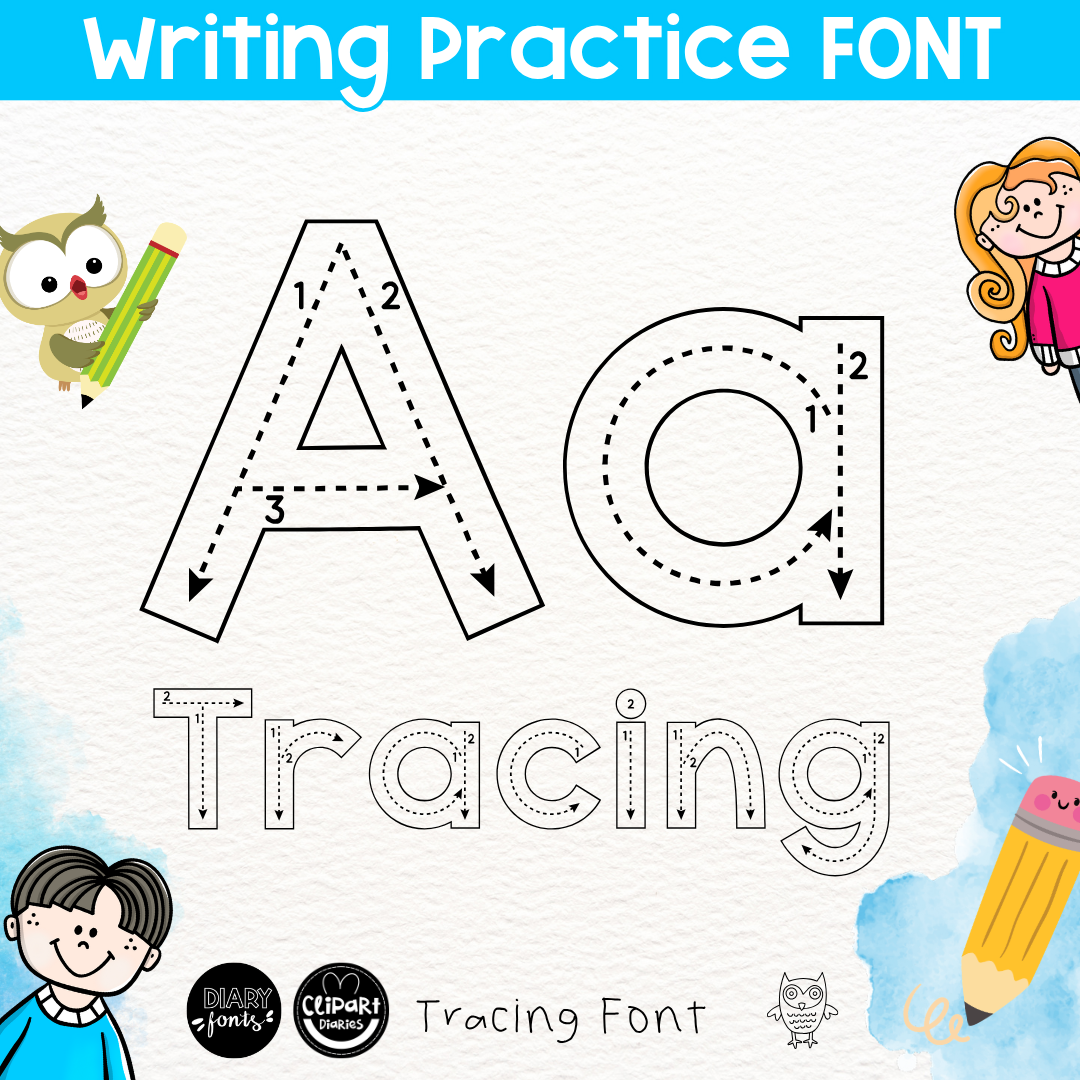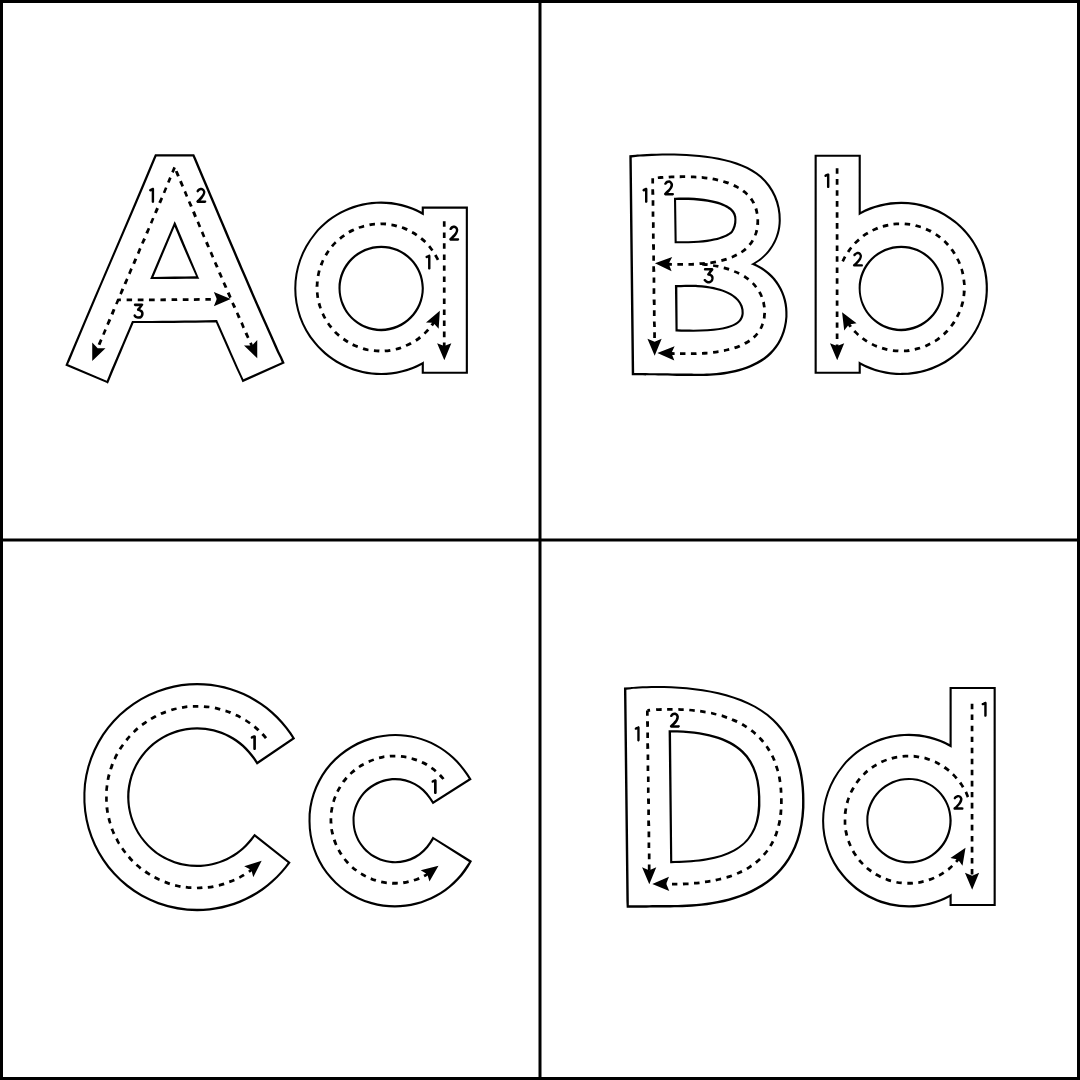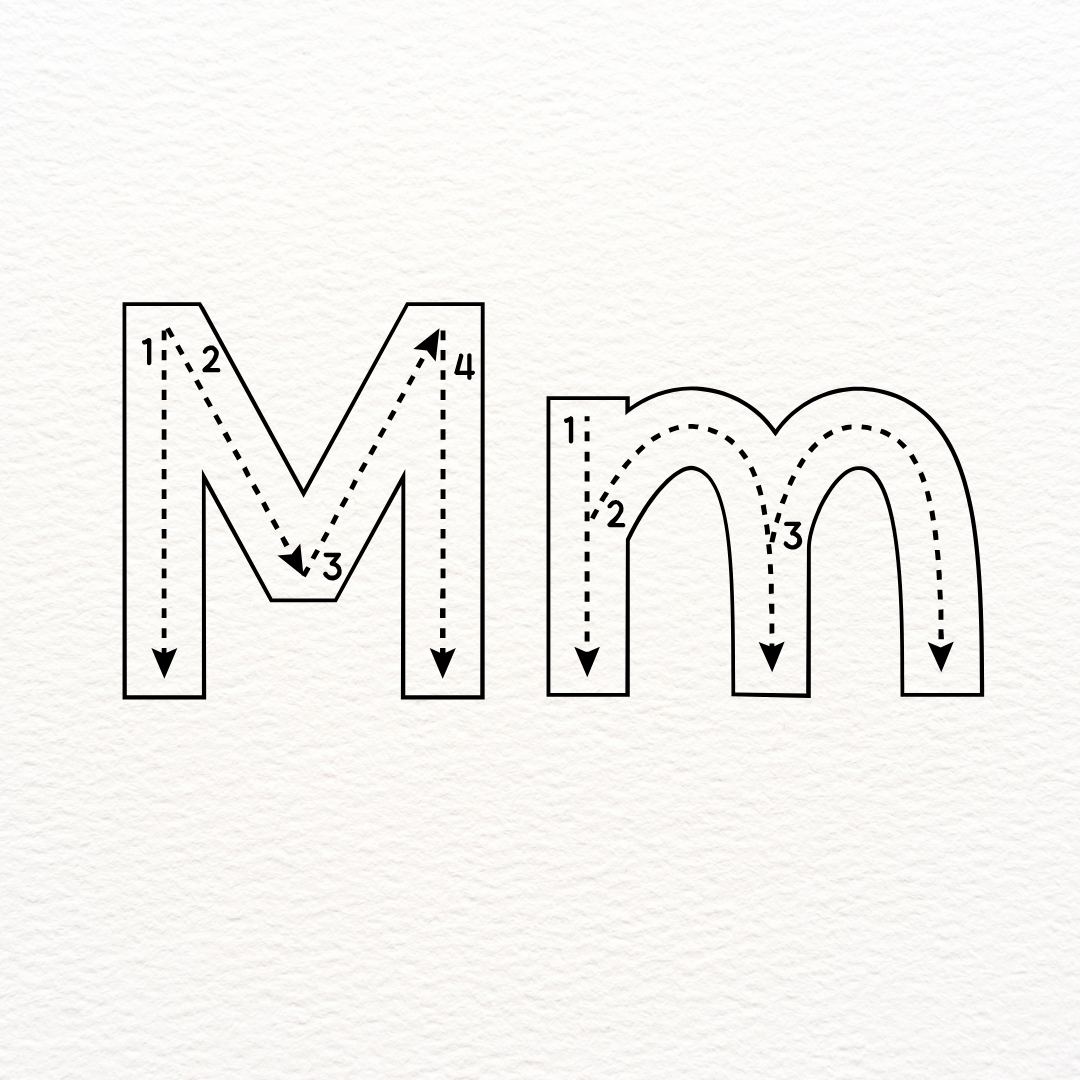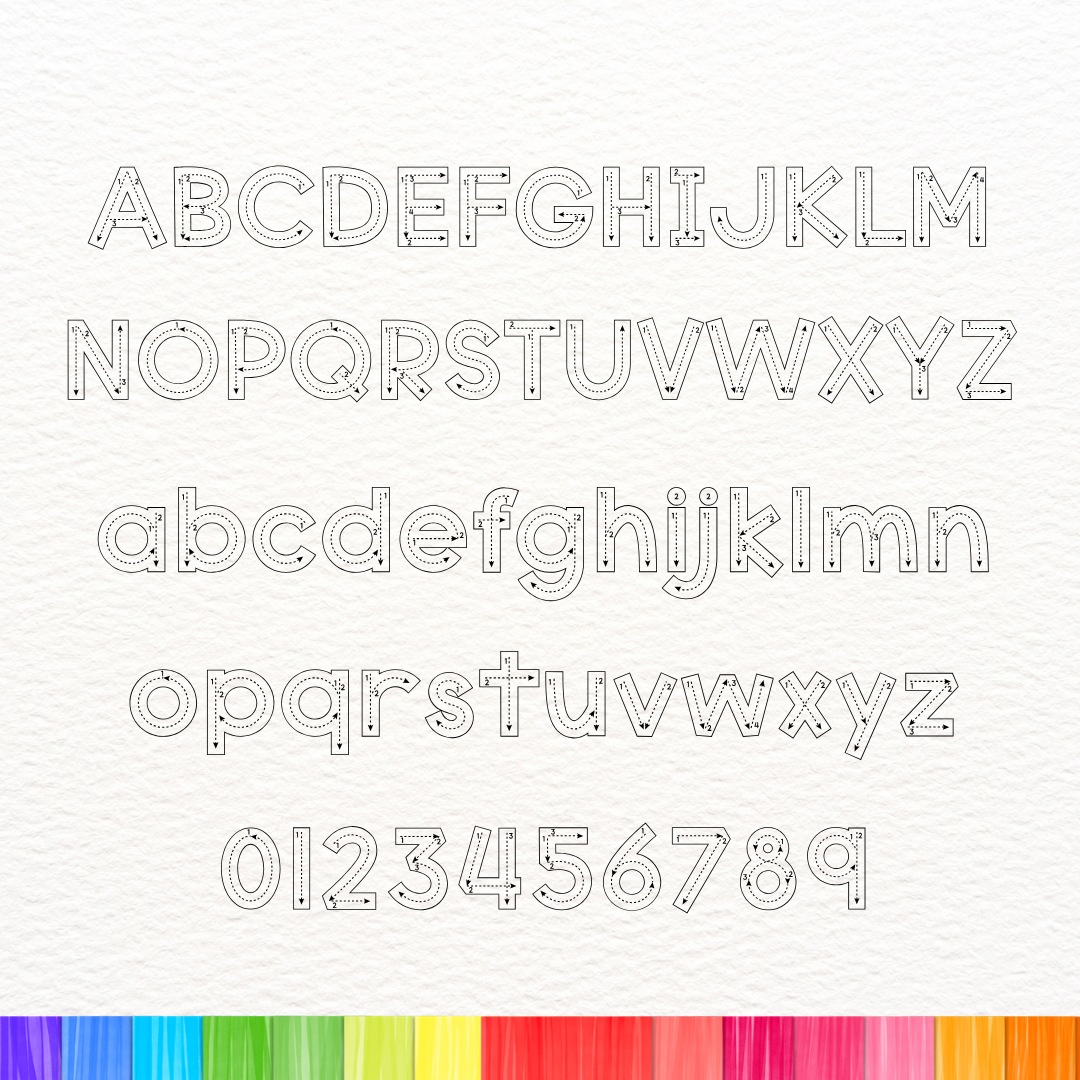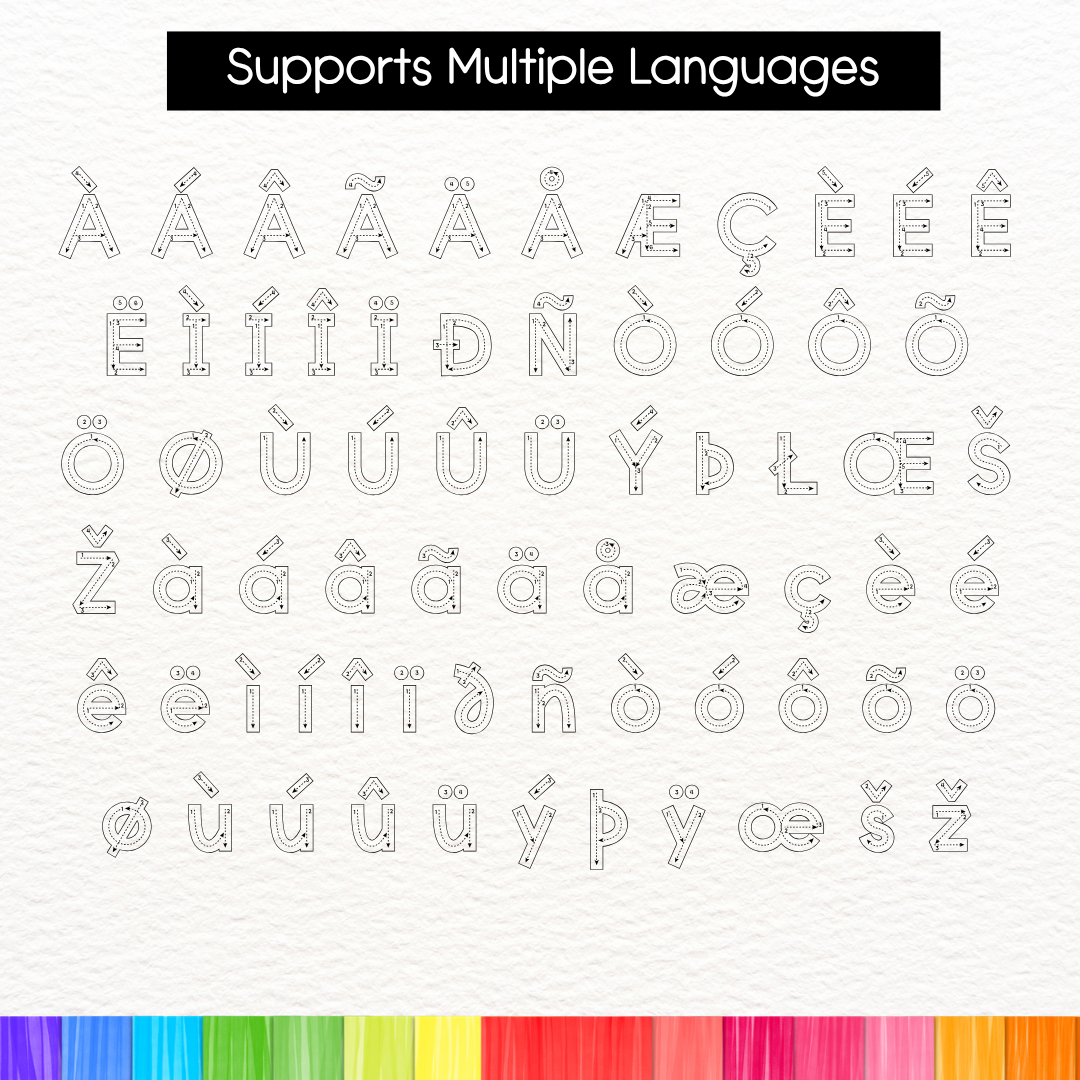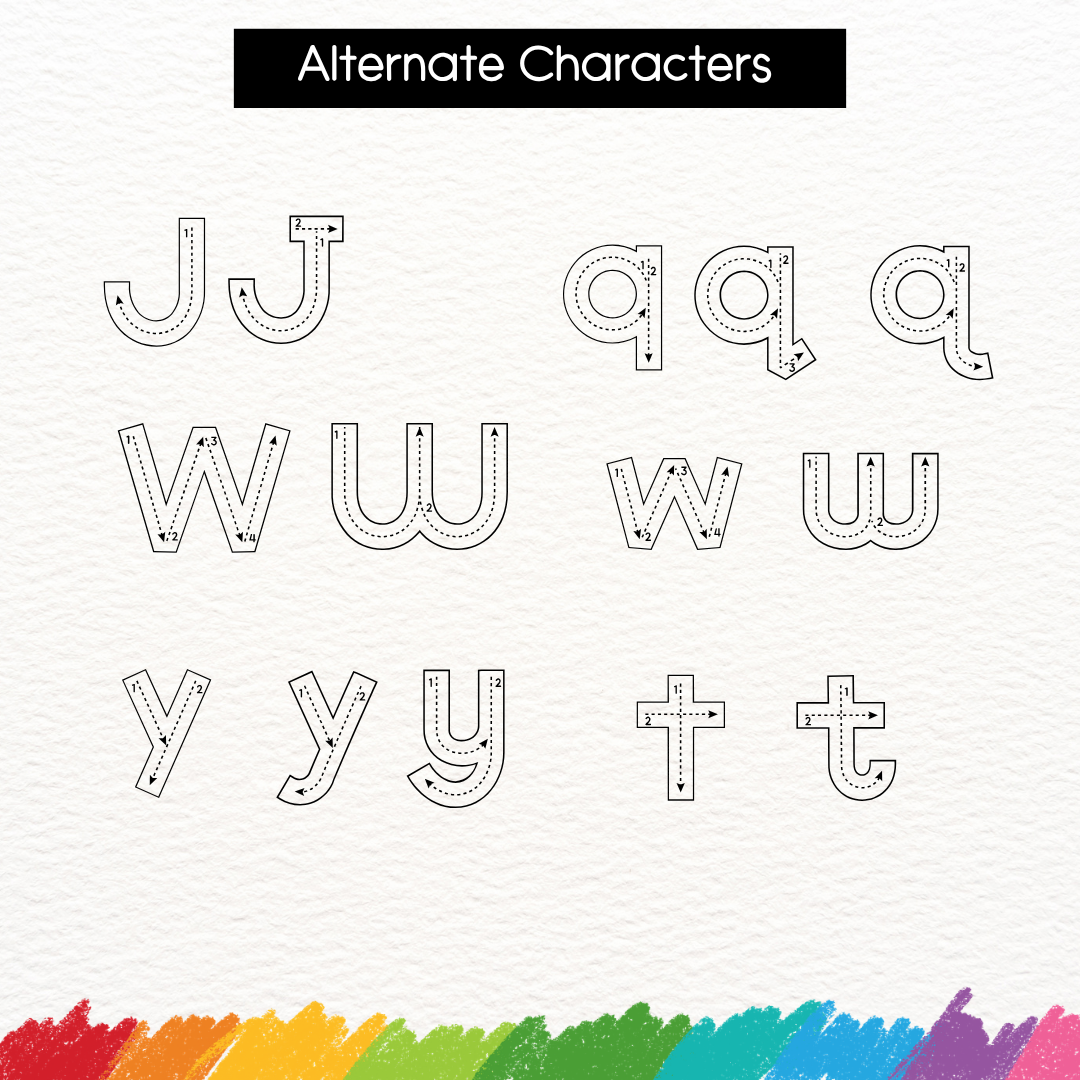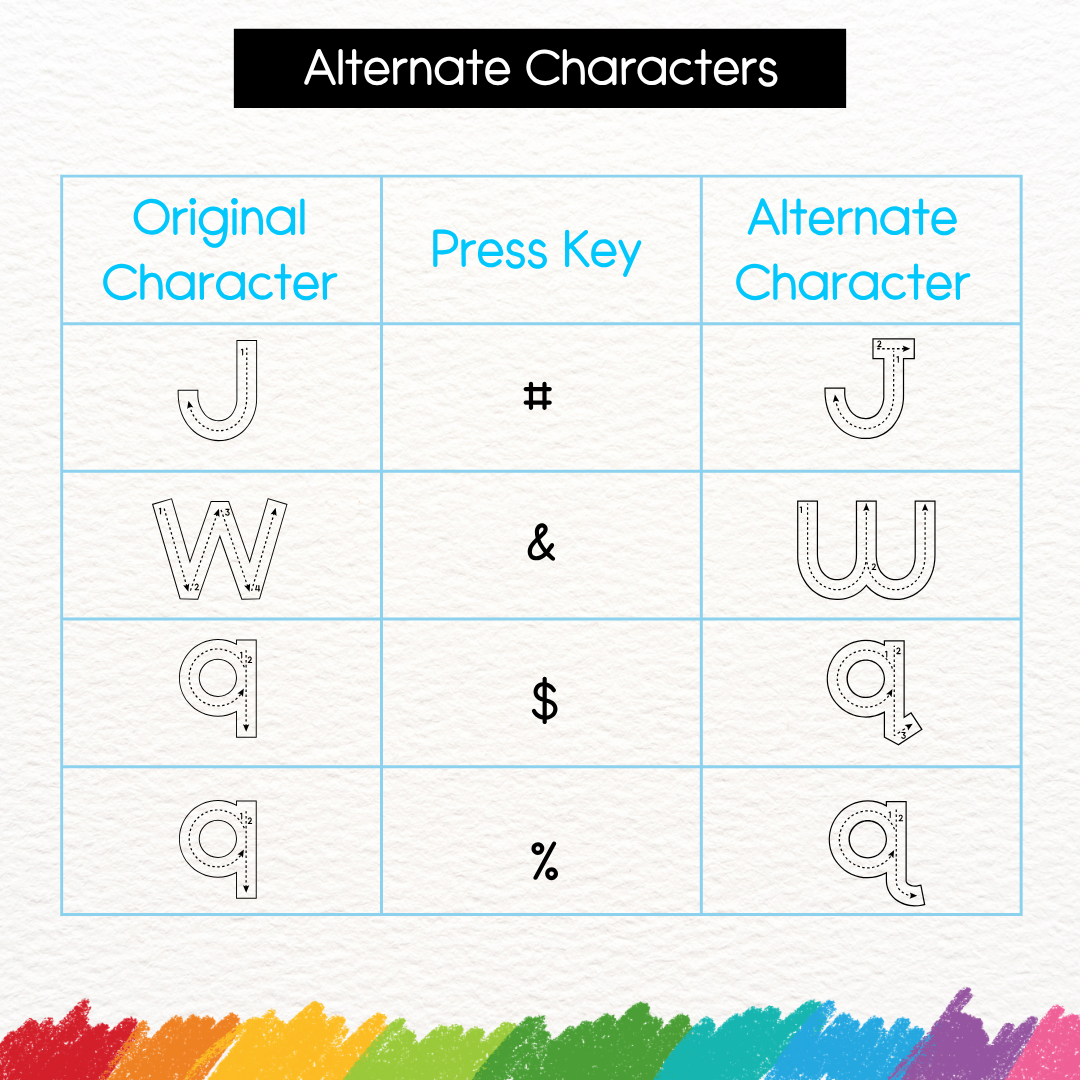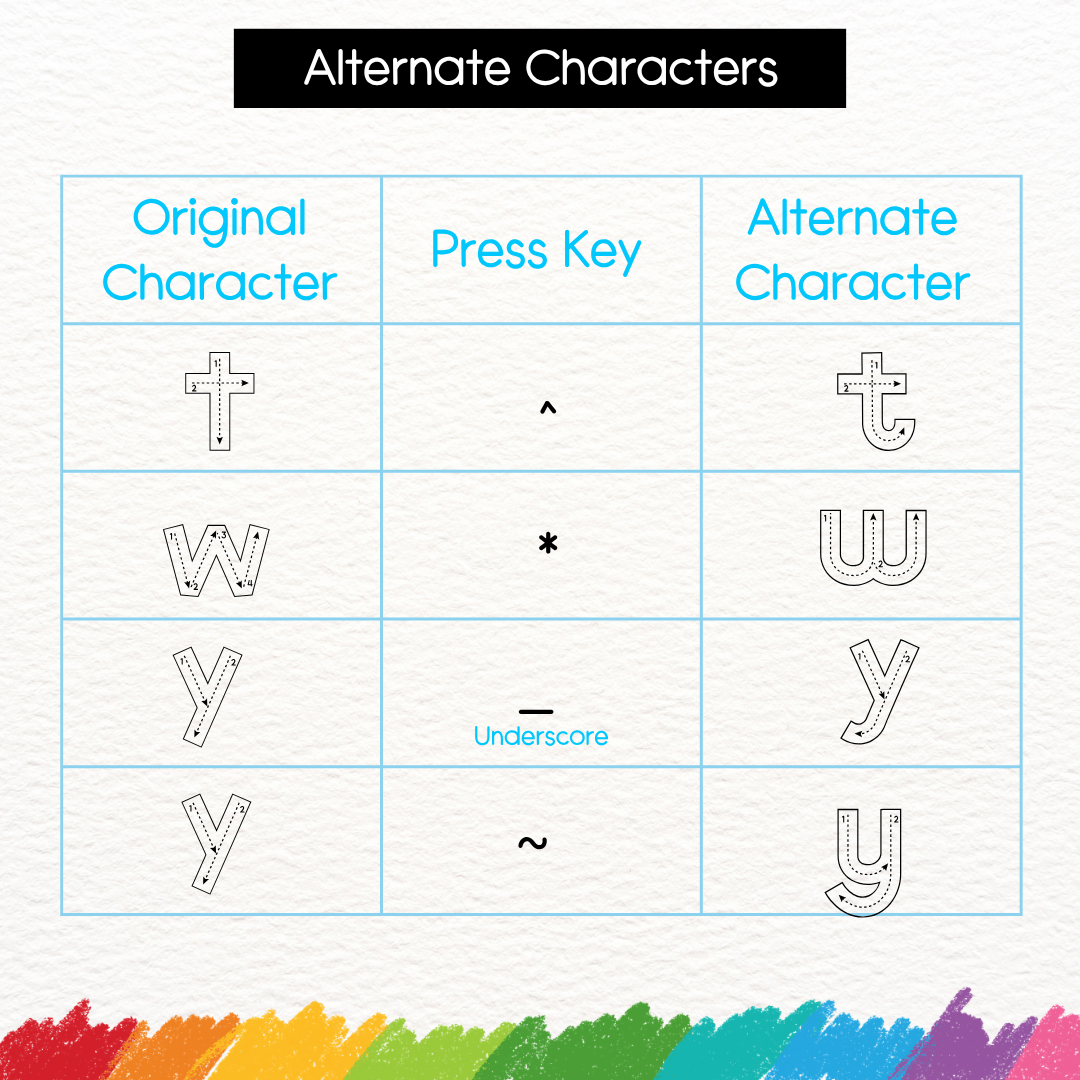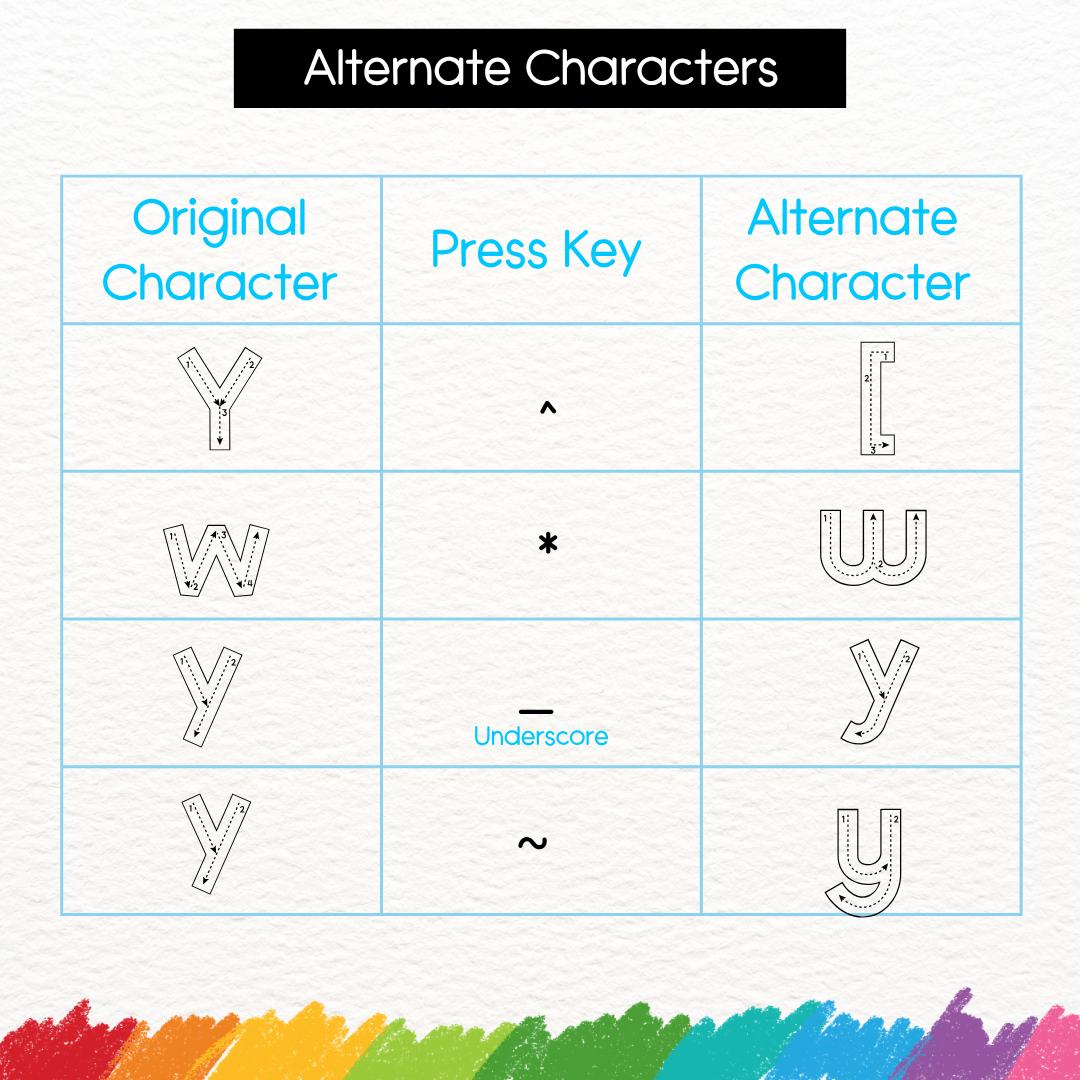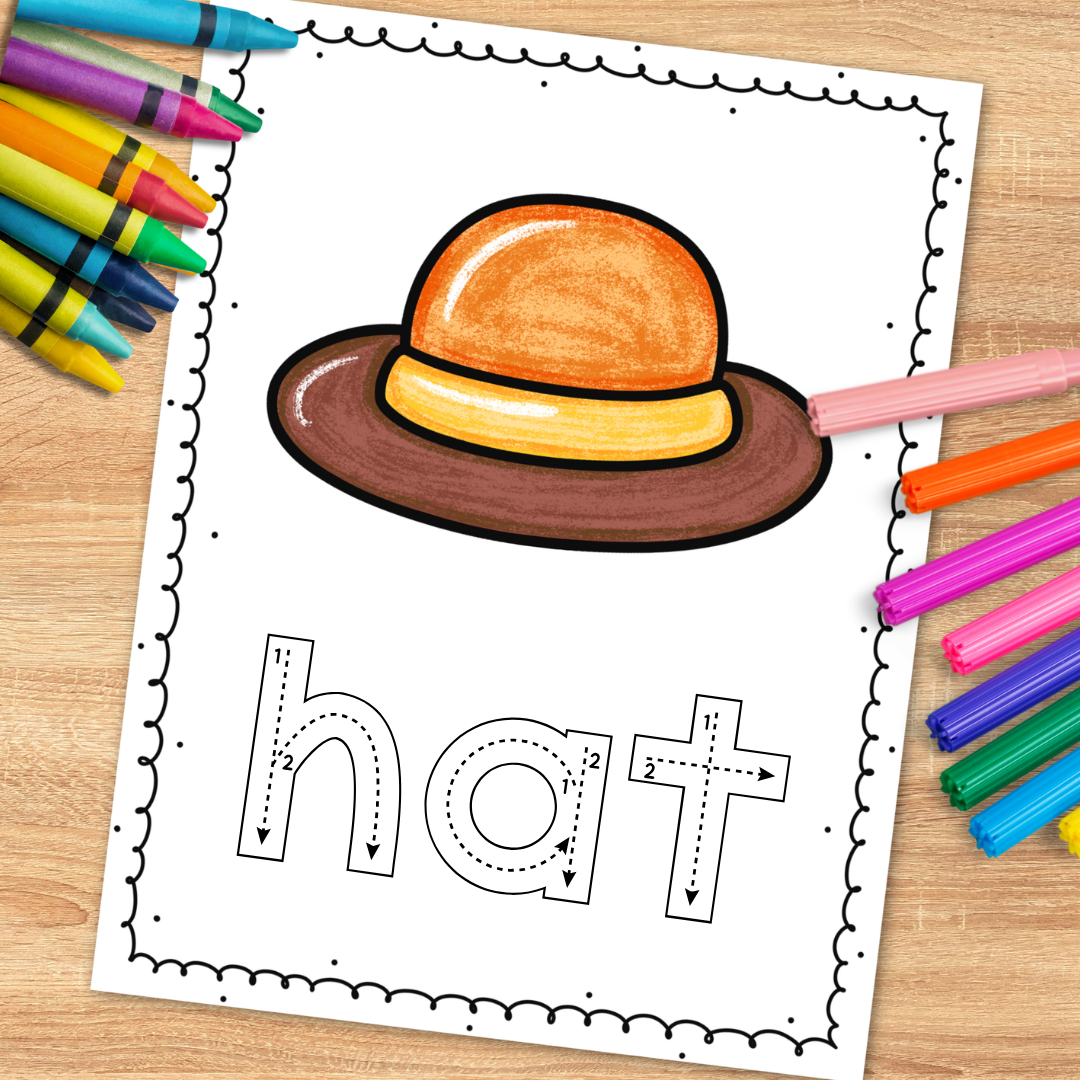
ABC Alphabet Tracing Font with Directional Arrows and Guide
Tracing Letter Font – Diary Trace Me – Commercial Use
This font has large letters with tracing lines or arrow and number guides, perfect for your tracing and fine motor activities. This set includes all capital letters, small letters, and numbers best for toddler tracing, name tracing, letter recognition letter tracing and number tracing exercises worksheets.
This font supports multiple languages.
Alternate characters for J, W, q, t, w, and y are also available. (See preview for the letter alternates.)
Create fun and engaging activities for kids to trace letters with these goodies!